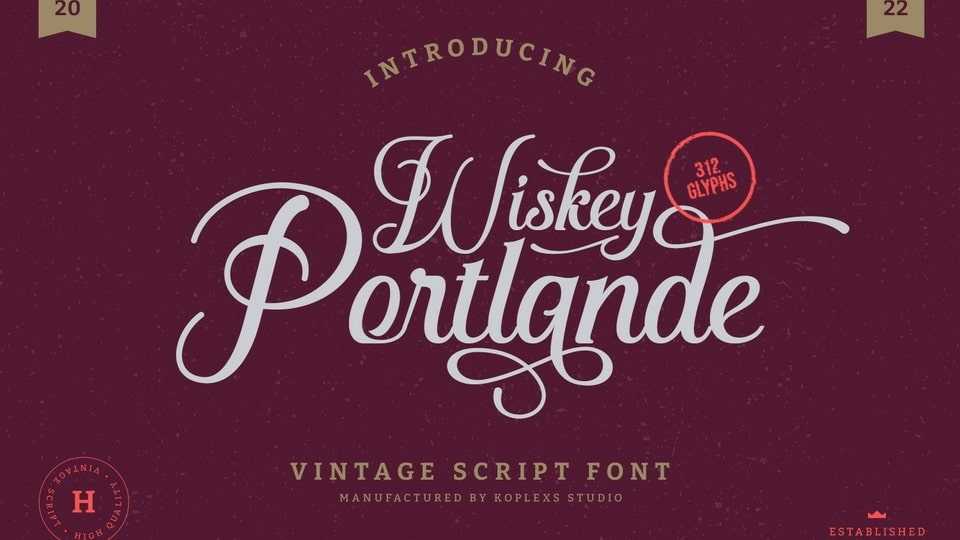
Download Wiskey Portlande font, a vintage script typeface inspired by a traditional calligraphy envisioned in the 1980s, simple yet effective. Wiskey Portlande font creates a luxurious and elegant design appearance.
Designer: Koplexs Studio